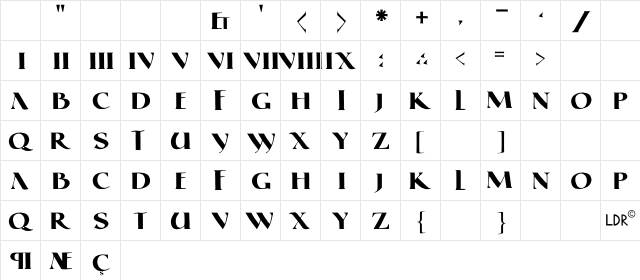
Roman Elegant Regular
Design Context for Roman Elegant Typeface
Roman Elegant takes a measured approach to typography — its balanced proportions and neutral character make it a reliable workhorse for both digital and print work.
Pro Tip: Use Roman Elegant in both headline and body roles to test its range before committing to a single application.